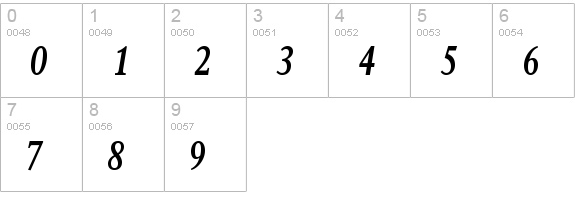
Rawlinson Cond Bold Italic is a strong, high-contrast, condensed-width, italic variant in the Rawlinson typeface family \xE2\x80\x94 well suited to headlines, attention-grabbing titles, and strong calls-to-action.
Rawlinson Cond Bold Italic is a bold and dynamic font that exudes confidence and sophistication. With its sleek and slanted letterforms, this font adds a touch of elegance and flair to any design project. Whether used for headlines, logos, or body text, Rawlinson Cond Bold Italic commands attention and draws the eye with its distinctive style. This font is perfect for projects that require a strong and impactful visual presence. Its bold weight and italicized slant create a sense of movement and energy, making it ideal for conveying a sense of urgency or importance. Whether you're designing a poster, a magazine layout, or a website, Rawlinson Cond Bold Italic will make a bold statement that is sure to captivate your audience. One of the best features of Rawlinson Cond Bold Italic is that it is freely available to download at FontsMarket.com. This means that you can easily access and use this font for both personal and commercial projects without any restrictions. The freedom to use this font without any limitations allows you to explore your creativity and bring your design visions to life. Not only does Rawlinson Cond Bold Italic offer versatility and style, but it also provides excellent legibility. The carefully crafted letterforms ensure that each character is easily distinguishable, even at smaller sizes. This makes it a reliable choice for projects that require clear and readable typography, ensuring that your message is effectively communicated to your audience. In summary, Rawlinson Cond Bold Italic is a powerful and stylish font that offers a perfect balance of elegance and impact. Its freely available download at FontsMarket.com allows you to unleash your creativity and create stunning designs without any limitations. So whether you're a graphic designer, a web developer, or simply a typography enthusiast, Rawlinson Cond Bold Italic is a font that you can't afford to miss.